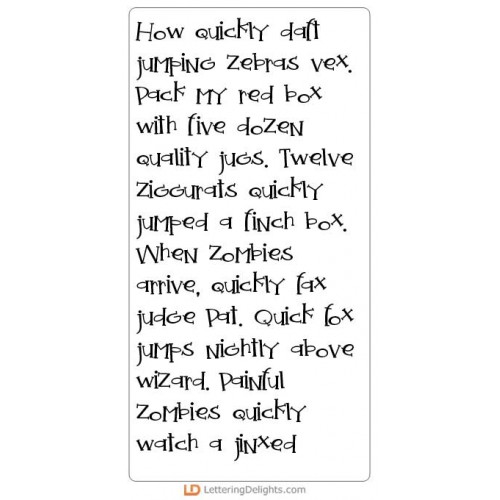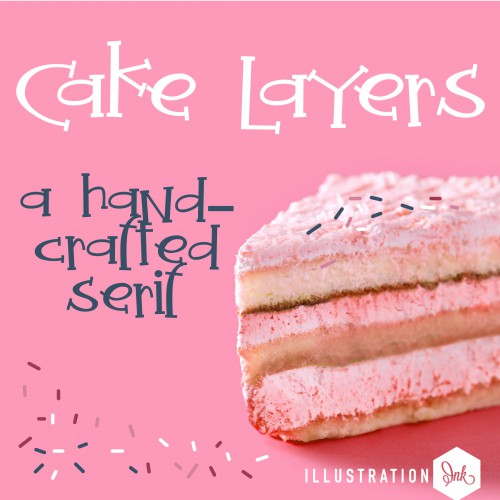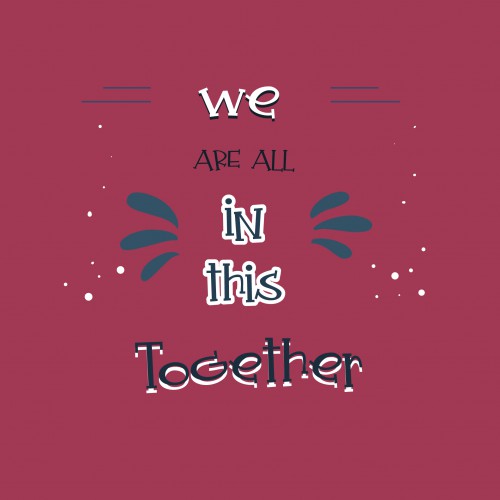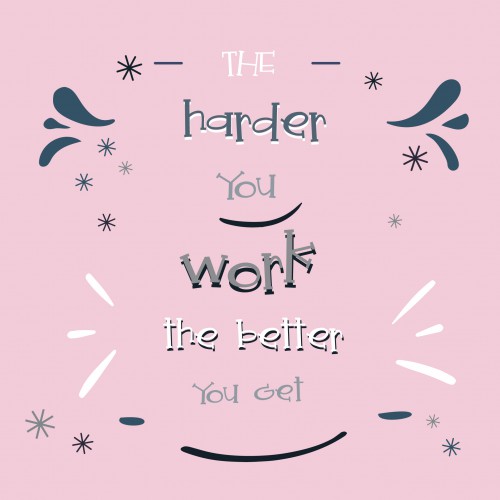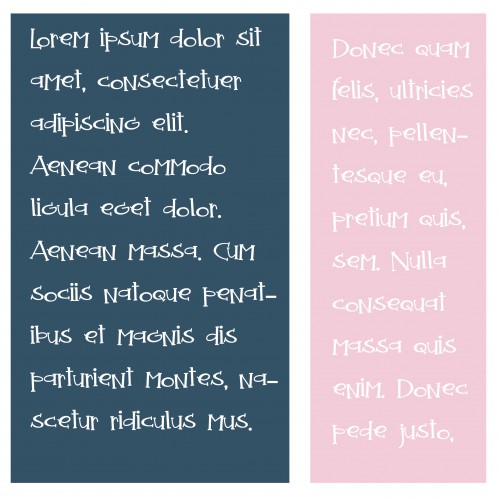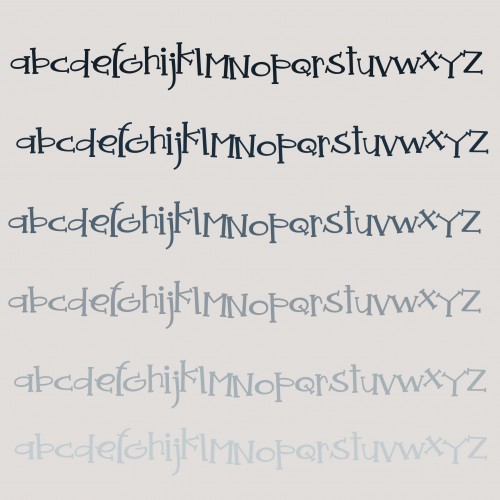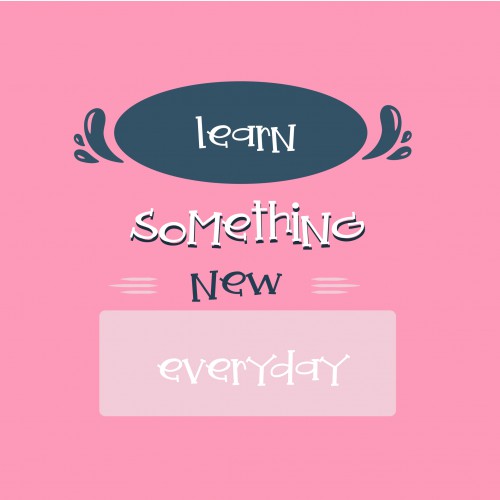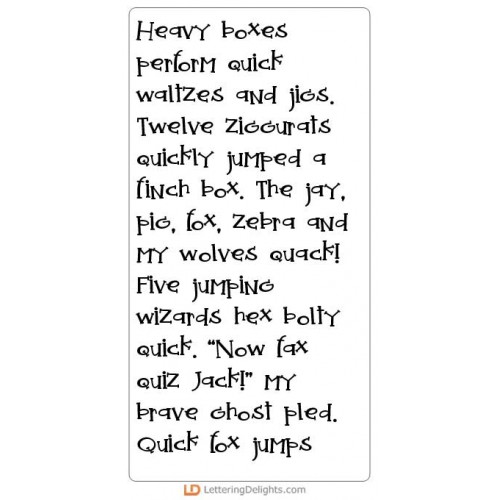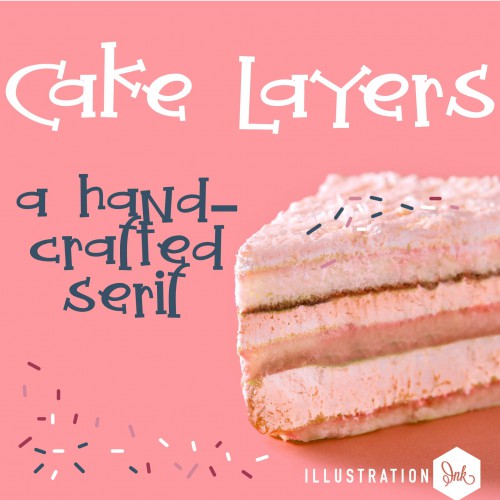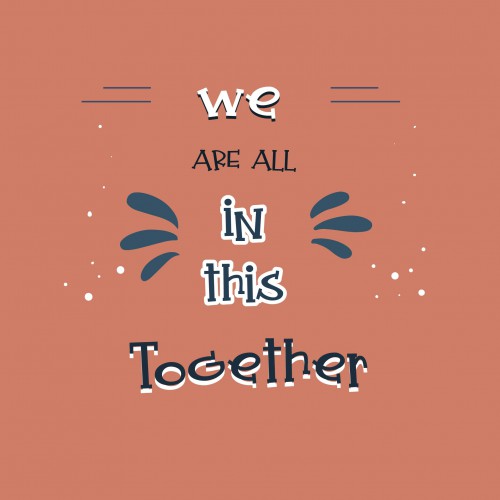
PN Cake Layers - FN
This bouncy and whimsical font has a very toggled baseline and fun, hand-crafted serif lettering...
PN Cake Layers Bold - FN
This bouncy and whimsical font has a very toggled baseline and fun, hand-crafted serif lettering...
This fun cuttable graphic set features 26 images of the most adorable but creepy birds accenting jou..
Bones and Feathers Society - CP
Create adorable creepy bird cage gift boxes with this simple cut project set...
Bones and Feathers Society - PP
This fun paper pack coordinates with our Bones and Feather Society Collection...
Bones and Feathers Society - AL
This fun alphabet coordinates with our Bones and Feather Society Collection...